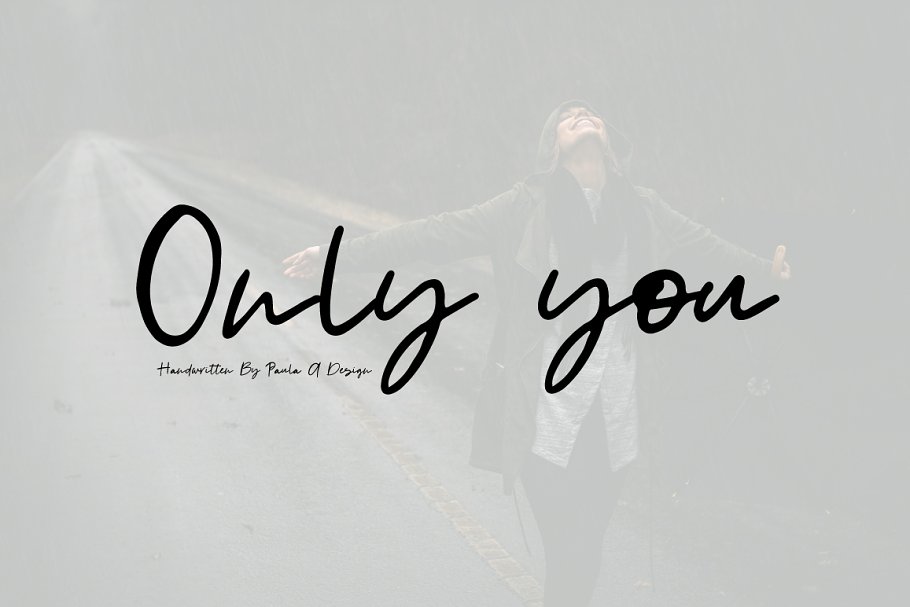
Introducing Only You, a stunning handwritten font designed to bring your creative projects to life. With its perfect script and playful vibe, this classic stylist font is the perfect addition to any high-impact headline or branding project.
Created by the talented team at Art Studio, Only You has been carefully crafted to ensure that every single letter is as beautiful and impactful as the last. And with multilingual support for over 20 languages, you can rest assured that this font will work perfectly for your specific needs.
But that's not all - when you download Only You, you'll also get access to a range of stylistic ligatures, punctuation marks, and numbers, giving you complete creative control over your project. Whether you're designing invitations, blog posts, or anything in between, this font is sure to make your work stand out.